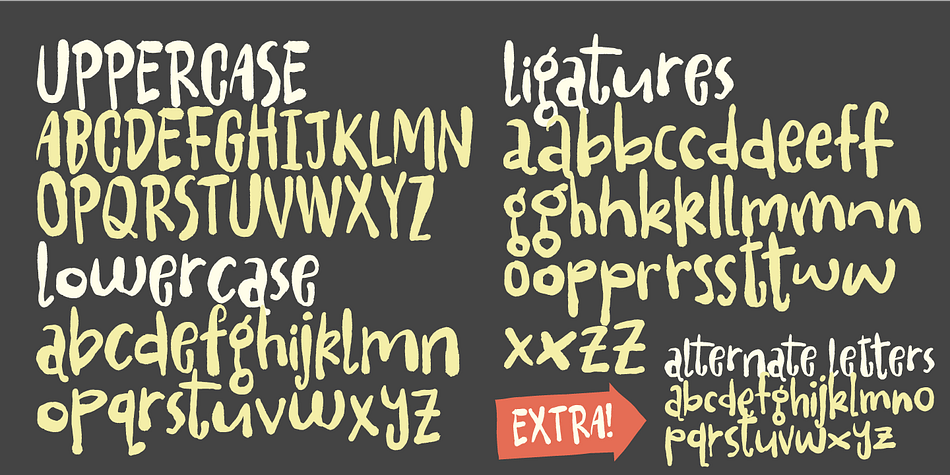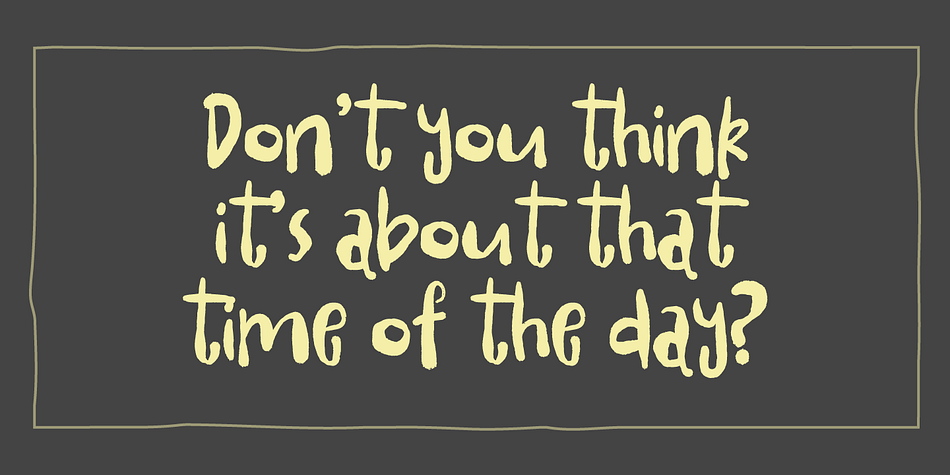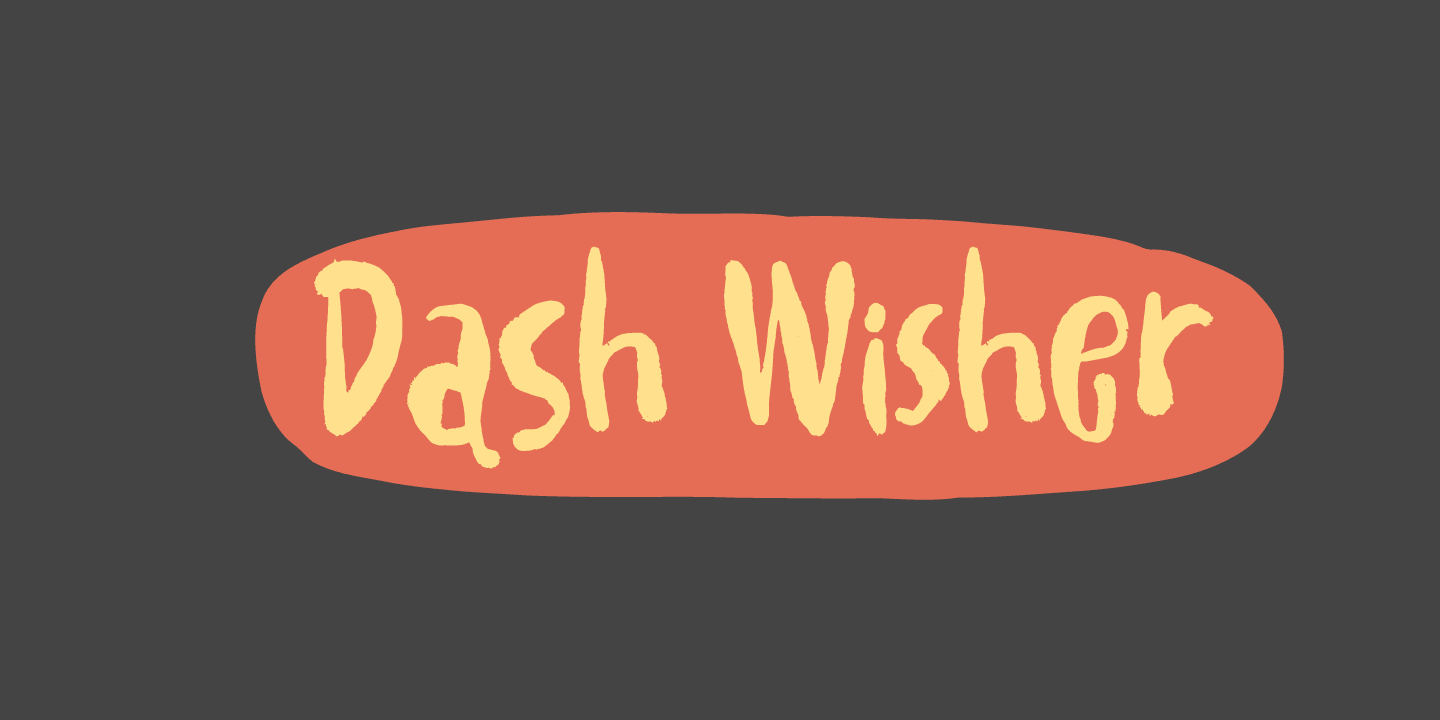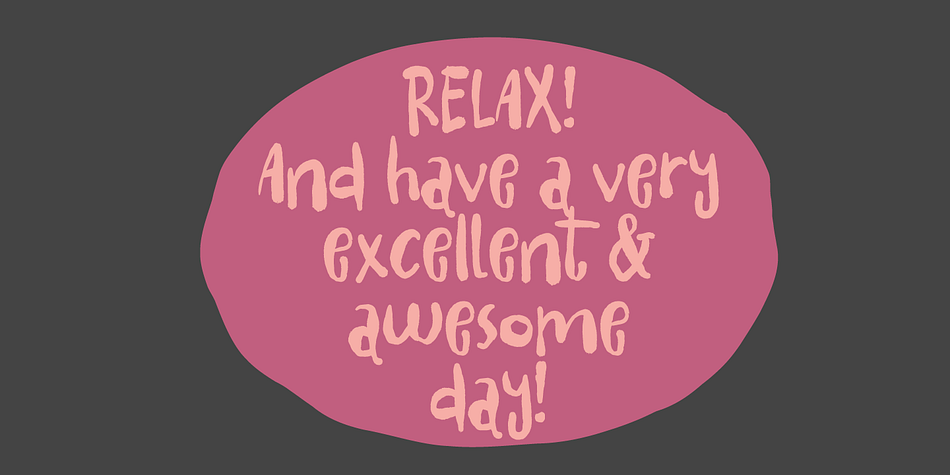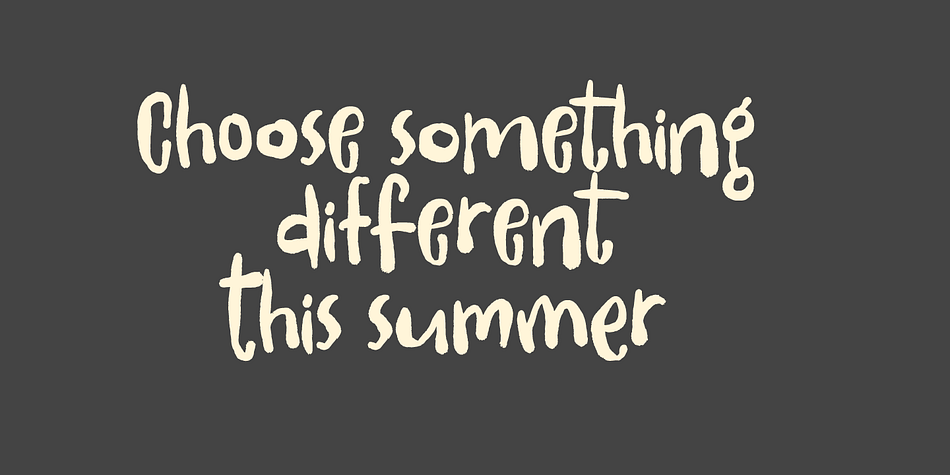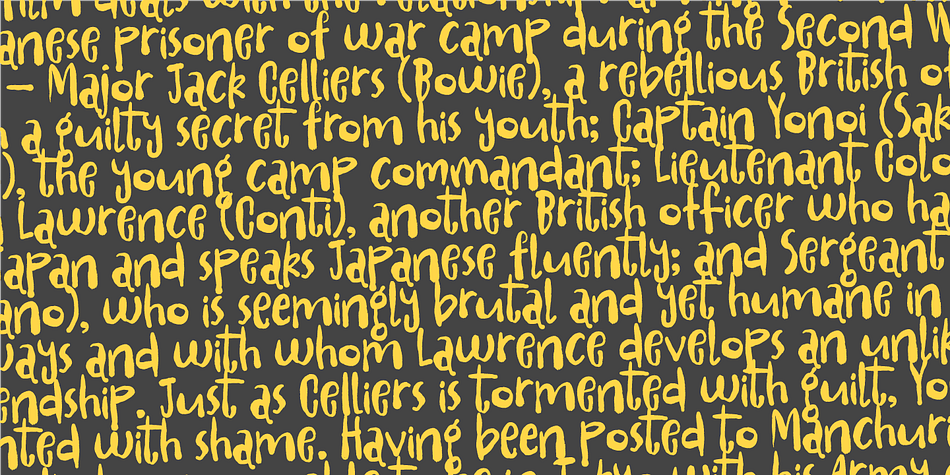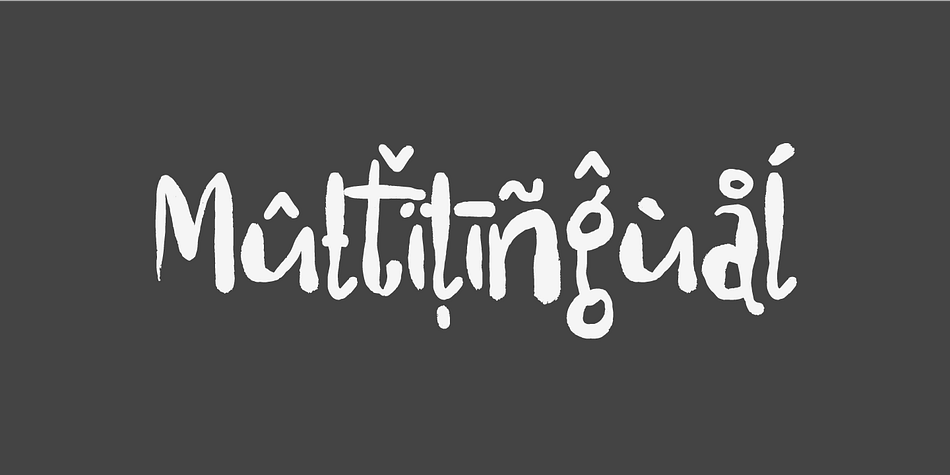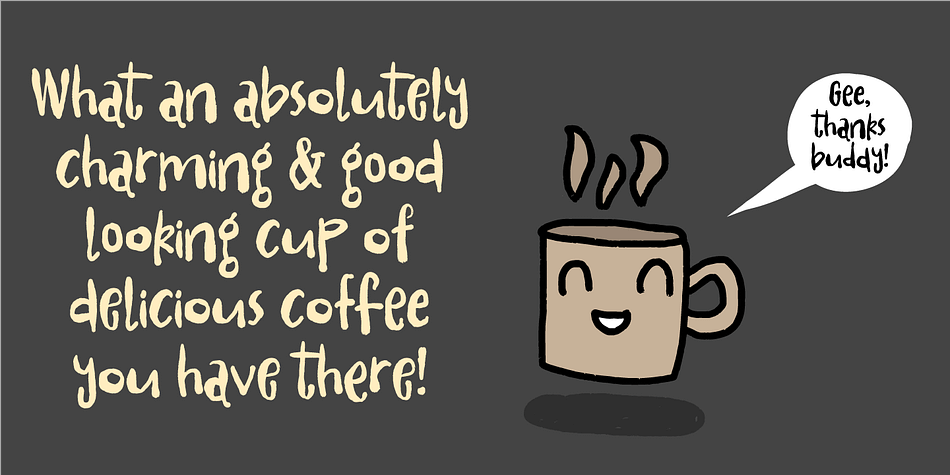
Designed by Jakob Fischer, Dash Wisher is a hand display font published by Pizzadude.dk.
The name Dash Wisher is a wordplay. The letters of the font are also quite playful - you never know what comes next, when typing.There is no exact x-heigh, the baseline is jumpy, the descender and ascender are messed up…there are no real rules for Dash Wisher! But with all that in mind, it comes out surprisingly legible, which means it does have a wide range of use. Let your fantasy and imagination break the boundaries and Dash Wisher do the rest - or maybe the other way around! :)
I’ve added both ligatures to substitute double letters and a set of alternate letters as well.